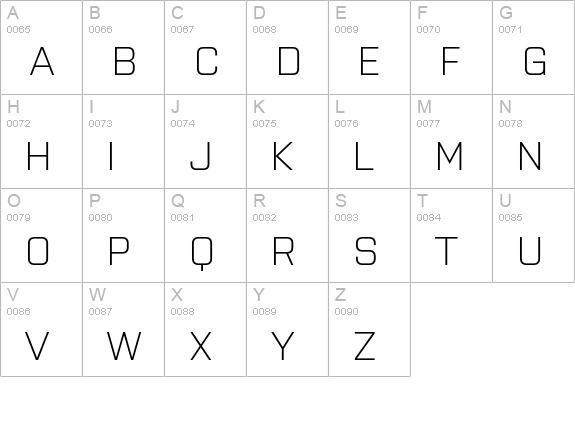
Purista Light is a refined, elegant variant in the Purista typeface family \xE2\x80\x94 well suited to elegant body text, refined sub-headings, and luxury branding.
Purista Light font is a sleek and modern typeface that exudes elegance and sophistication. With its clean lines and minimalist design, this font is perfect for adding a touch of refinement to any project. The light weight of the font gives it a delicate and airy quality, making it ideal for use in elegant and sophisticated designs. What sets Purista Light font apart is that it is not only stylish and versatile, but also free to download. That's right - you can access this beautiful font at no cost on FontsMarket.com. Whether you're working on a branding project, editorial design, or any other creative endeavor, Purista Light font is sure to elevate your work with its timeless appeal. Download it today and add a touch of class to your designs!